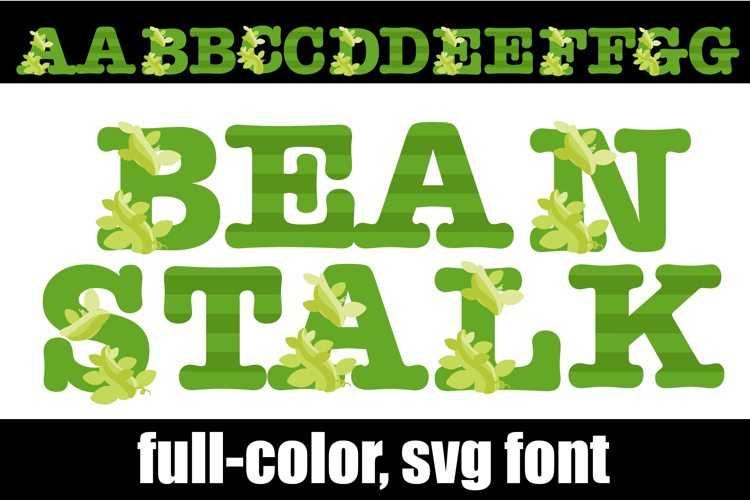
Beanstalk Color Font
This full-color font features letters that look like beanstalks. There is an alt case of each letter with a different color combination.